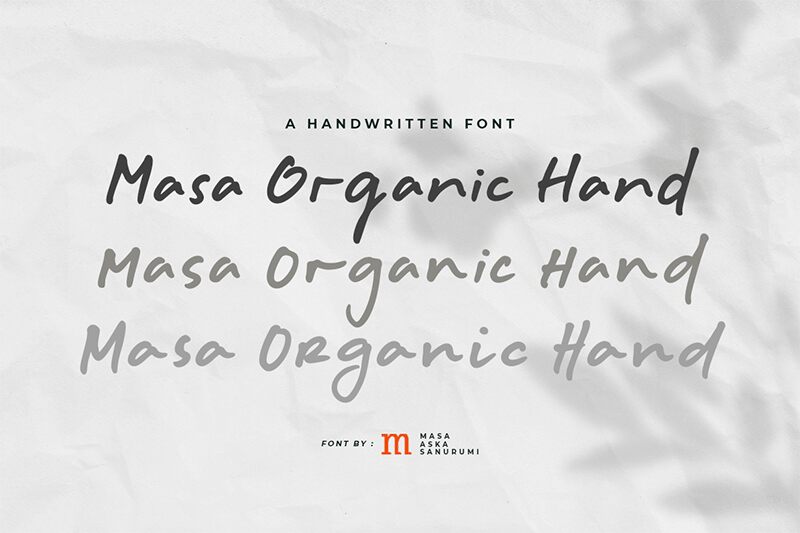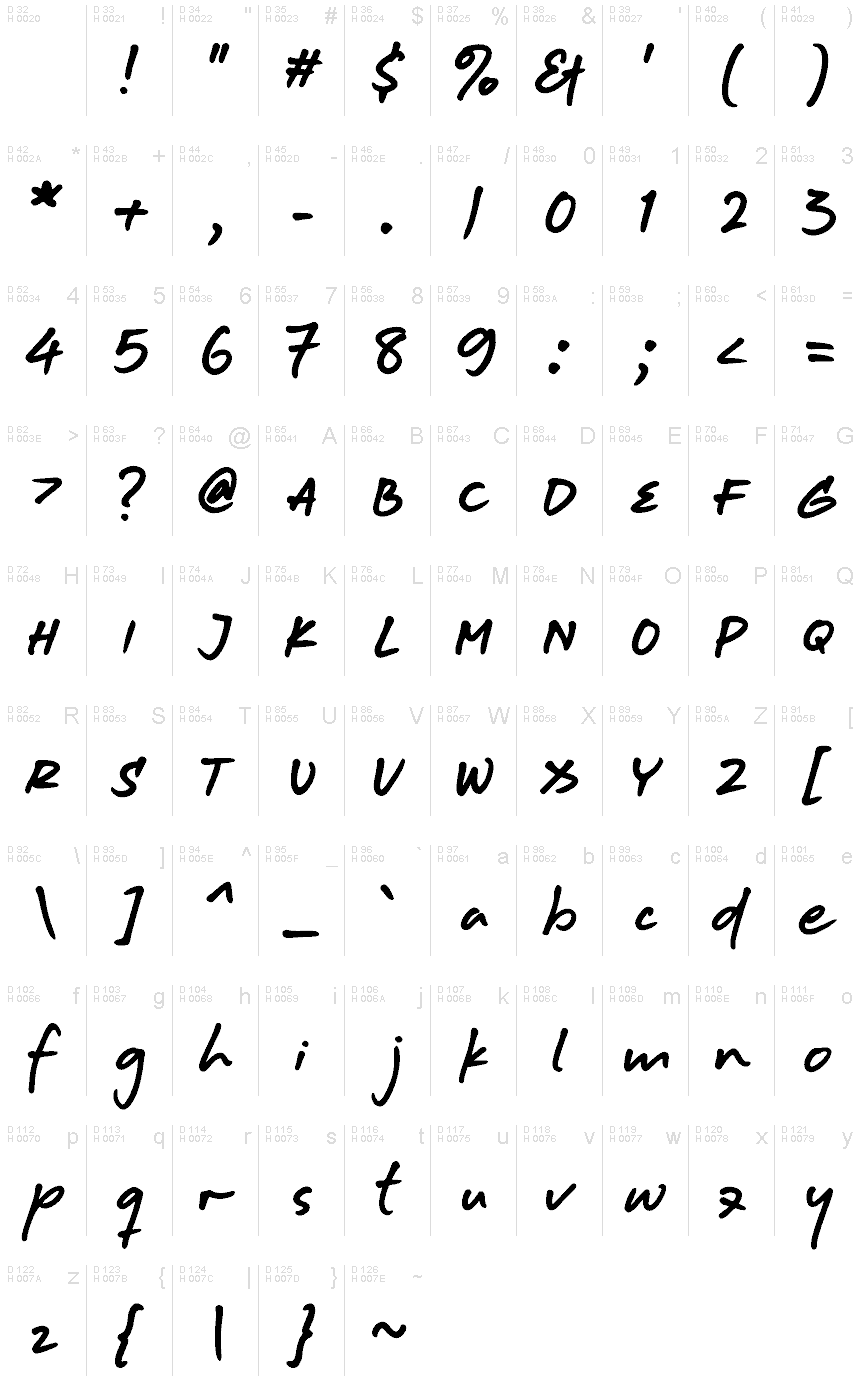
Masa Organic Hand Alternate One
Masa Organic Hand Alternate One font by Masa Aska Sanurumi features a simple casual handwritten style with natural and organic flow. The lowercase alphabet has a modern and playful feel while the small uppercase set that goes with it is more serious. All the characters work together to form a friendly font that’s informal in essence.
Applications for this free handwritten font are diverse making it suitable for album artwork, stickers, stamps, logos, posters, covers, decorative elements or small graphics within texts. Its use can extend to hand-drawn web elements – social media icons or buttons – originally designed presentations and artistic books as well as flyers and other communicative materials.